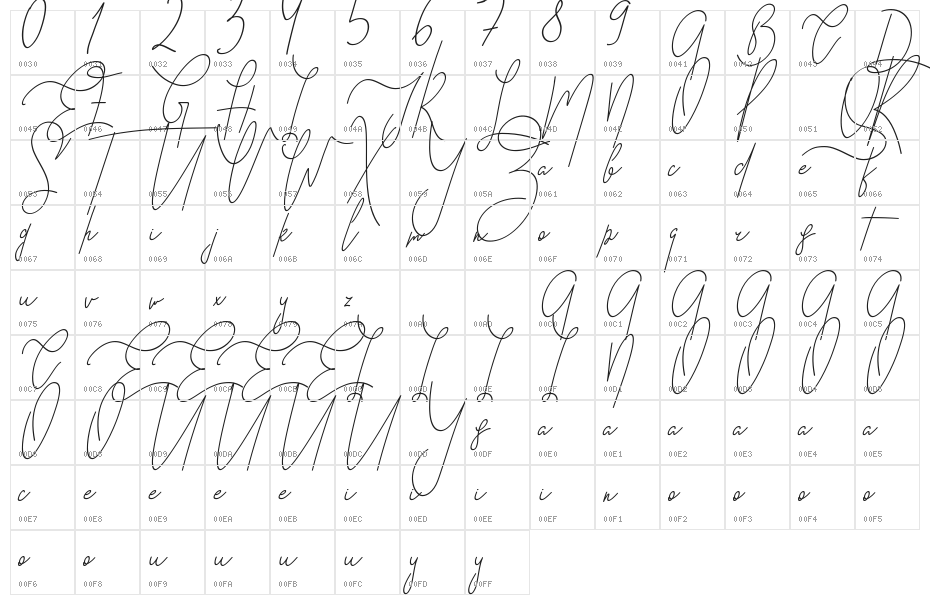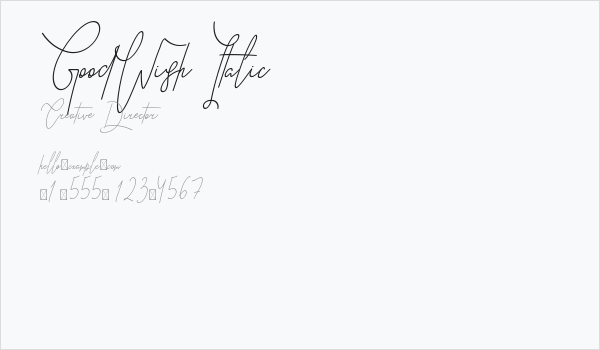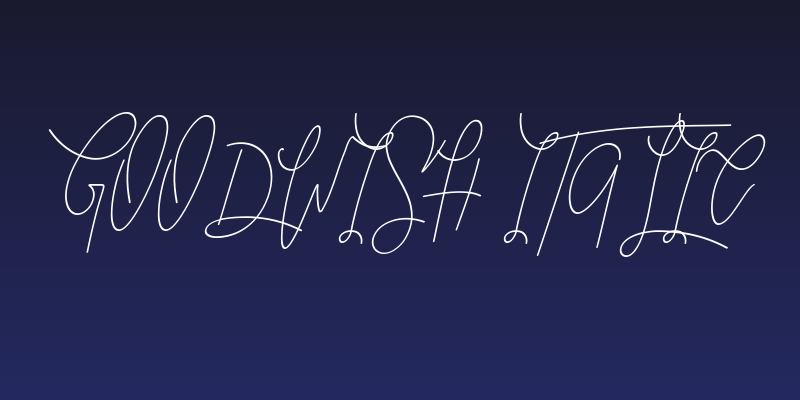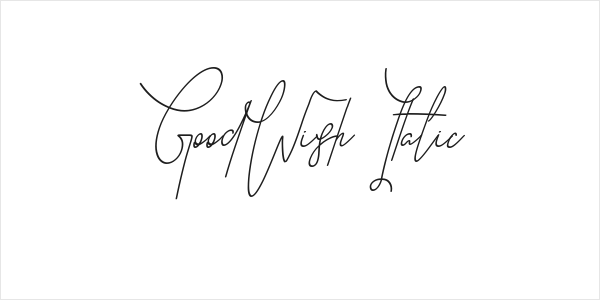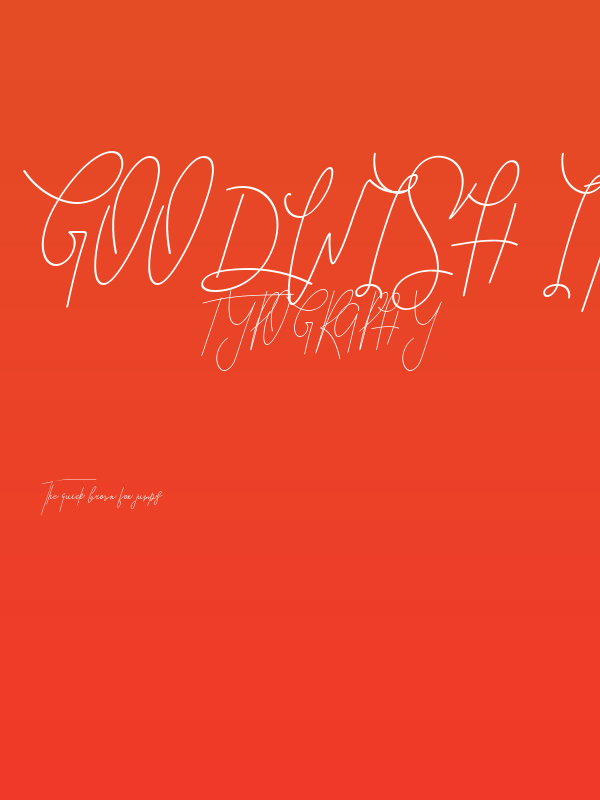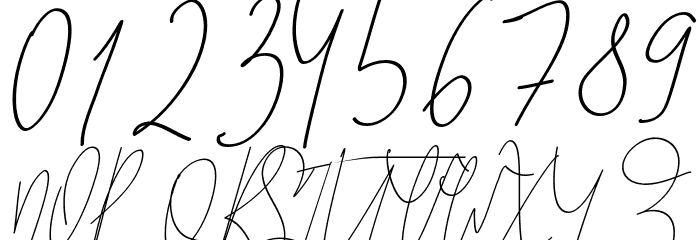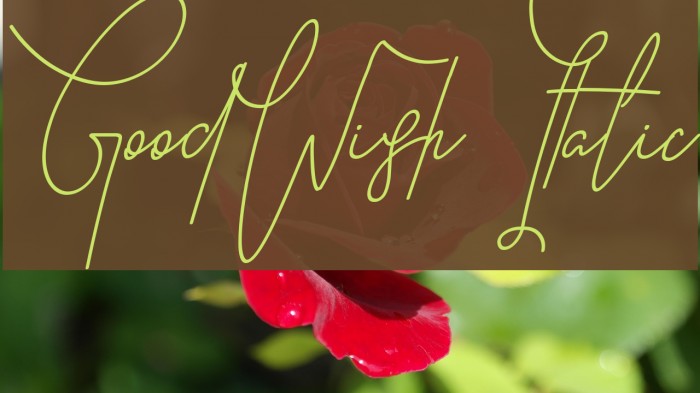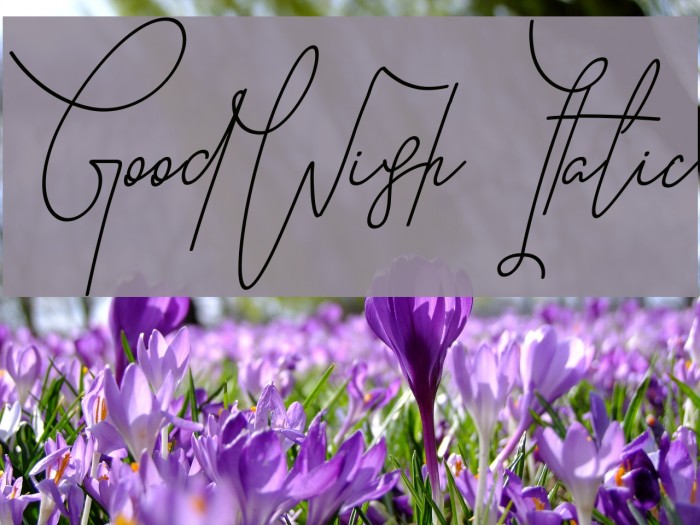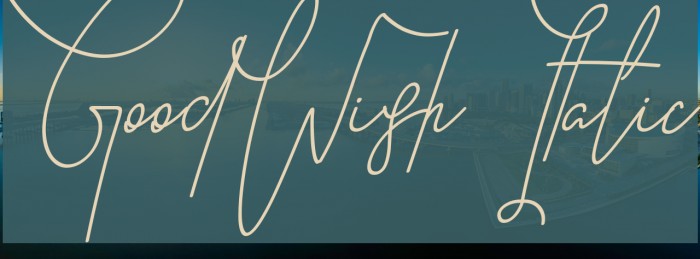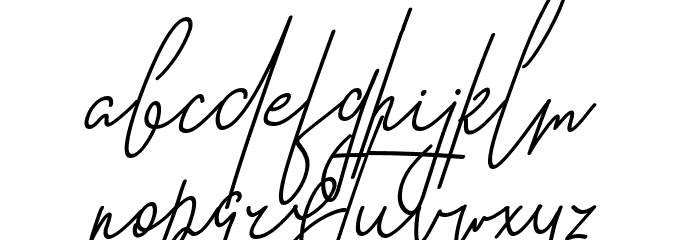
GoodWish Italic Font
This font features a delicate and elegant script style with a flowing, cursive appearance. The characters are connected, creating a seamless and fluid look that mimics natural handwriting. The strokes are thin and graceful, with a slight slant that enhances its italic nature. The uppercase letters are ornate and slightly larger than the lowercase, adding a touch of sophistication. The numerals are consistent with the script style, maintaining the same thin strokes and fluidity. Special characters are integrated smoothly, ensuring a cohesive overall appearance. This font exudes a sense of elegance and refinement, making it suitable for formal and decorative applications.
| Use Case | Headlines, Invitations, Decorative text |
| Proposed Projects | Ideal for wedding invitations, greeting cards, elegant branding, and decorative headings. |